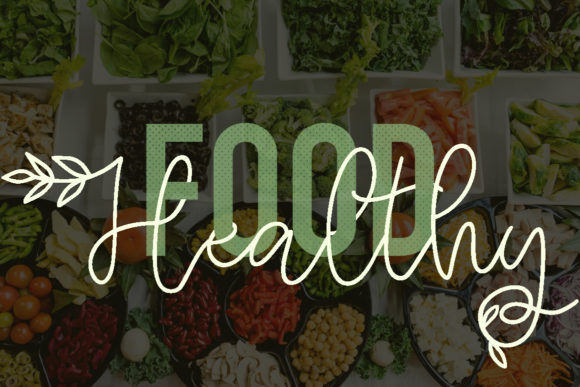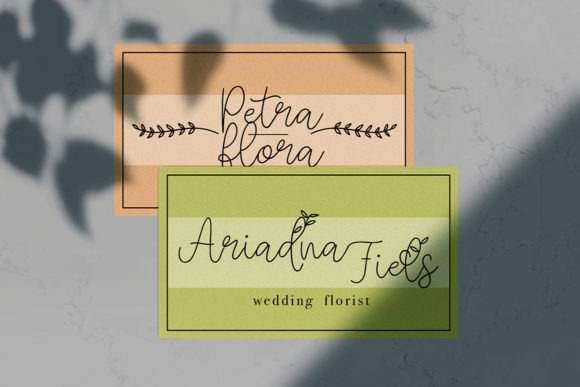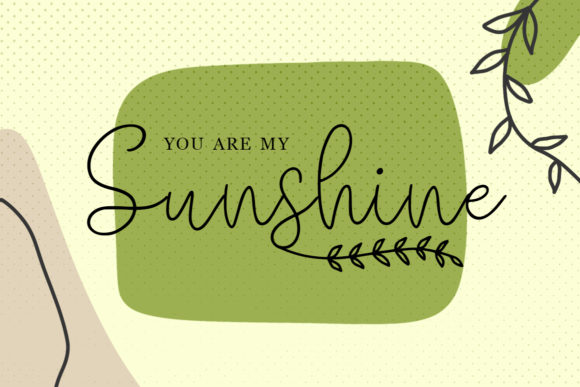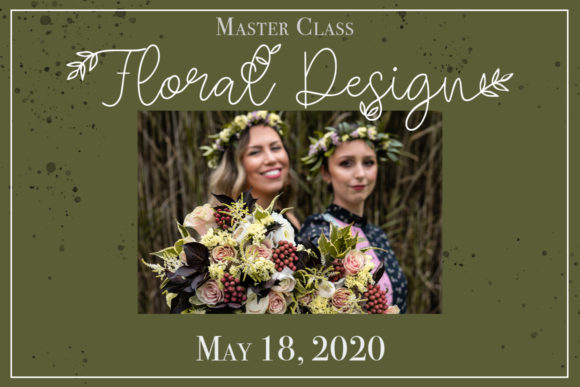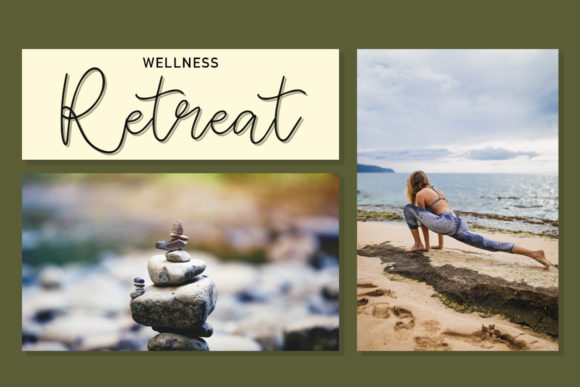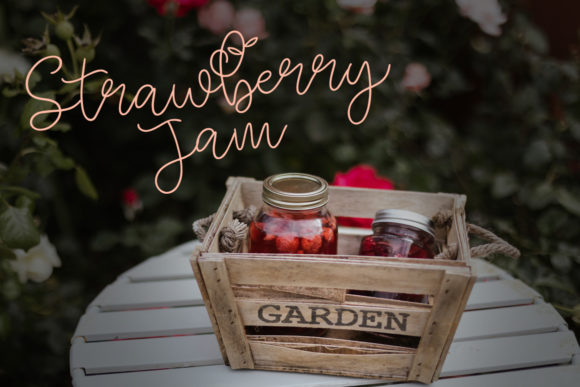
Dreamy Siberica Font: The Perfect Handwritten Touch for Your Designs
Are you looking for a font that exudes charm and elegance? Look no further than the Dreamy Siberica font. This beautiful handwritten font is perfect for adding a personal touch to your designs, and it’s versatile enough to be used in a variety of applications. In this article, we’ll take a closer look at the Dreamy Siberica font and explore its many uses.
A Brief Introduction to Dreamy Siberica Font
Dreamy Siberica is a beautiful handwritten font that feels equally charming and elegant. Its unique and flowing script makes it perfect for adding a touch of sophistication to any design. Whether you’re creating wedding invitations, thank you cards, quotes, greeting cards, logos, or business cards, this font is sure to impress.
What Makes Dreamy Siberica Font So Special?
So, what sets Dreamy Siberica apart from other fonts? Here are a few things that make it truly special:
• Handwritten touch: Dreamy Siberica has a beautiful handwritten feel that makes it perfect for designs that need a personal touch.
• Elegant and charming: This font exudes elegance and charm, making it perfect for designs that need to make a statement.
• Versatile: Dreamy Siberica can be used in a variety of applications, from wedding invitations to business cards.
• Easy to read: Despite its elegant and flowing script, Dreamy Siberica is easy to read, making it perfect for designs that need to convey a message.
Uses for Dreamy Siberica Font
Dreamy Siberica is a versatile font that can be used in a variety of applications. Here are a few ideas to get you started:
• Wedding invitations: This font is perfect for wedding invitations, adding a touch of elegance and romance to your designs.
• Thank you cards: Show your appreciation with beautiful thank you cards featuring the Dreamy Siberica font.
• Quotes: Add a touch of inspiration to your designs with quotes featuring the Dreamy Siberica font.
• Greeting cards: From birthday cards to holiday cards, Dreamy Siberica is the perfect font for adding a personal touch to your greeting cards.
• Logos: Use Dreamy Siberica to create a unique and memorable logo for your business.
• Business cards: Stand out from the crowd with business cards featuring the Dreamy Siberica font.
Tips for Using Dreamy Siberica Font
Here are a few tips for getting the most out of the Dreamy Siberica font:
• Use it sparingly: While Dreamy Siberica is a beautiful font, it can be overwhelming if used too much. Use it sparingly to add a touch of elegance to your designs.
• Pair it with other fonts: Dreamy Siberica pairs well with a variety of other fonts. Experiment with different pairings to find the one that works best for your design.
• Experiment with colors: Dreamy Siberica looks great in a variety of colors. Experiment with different colors to find the one that works best for your design.
Dreamy Siberica is a beautiful handwritten font that adds a touch of elegance and charm to any design. Its versatility and ease of use make it perfect for designers and crafters who want to create stunning designs. Whether you’re creating wedding invitations, thank you cards, quotes, greeting cards, logos, or business cards, Dreamy Siberica is the perfect font for adding a personal touch.